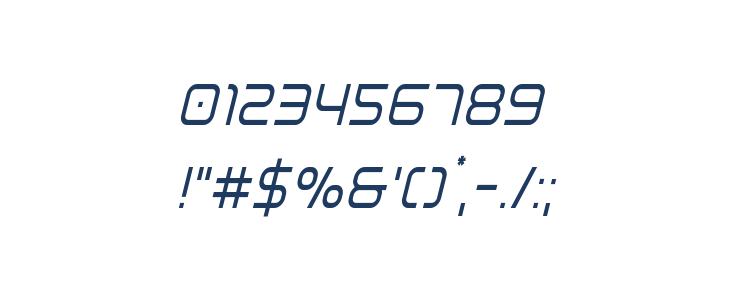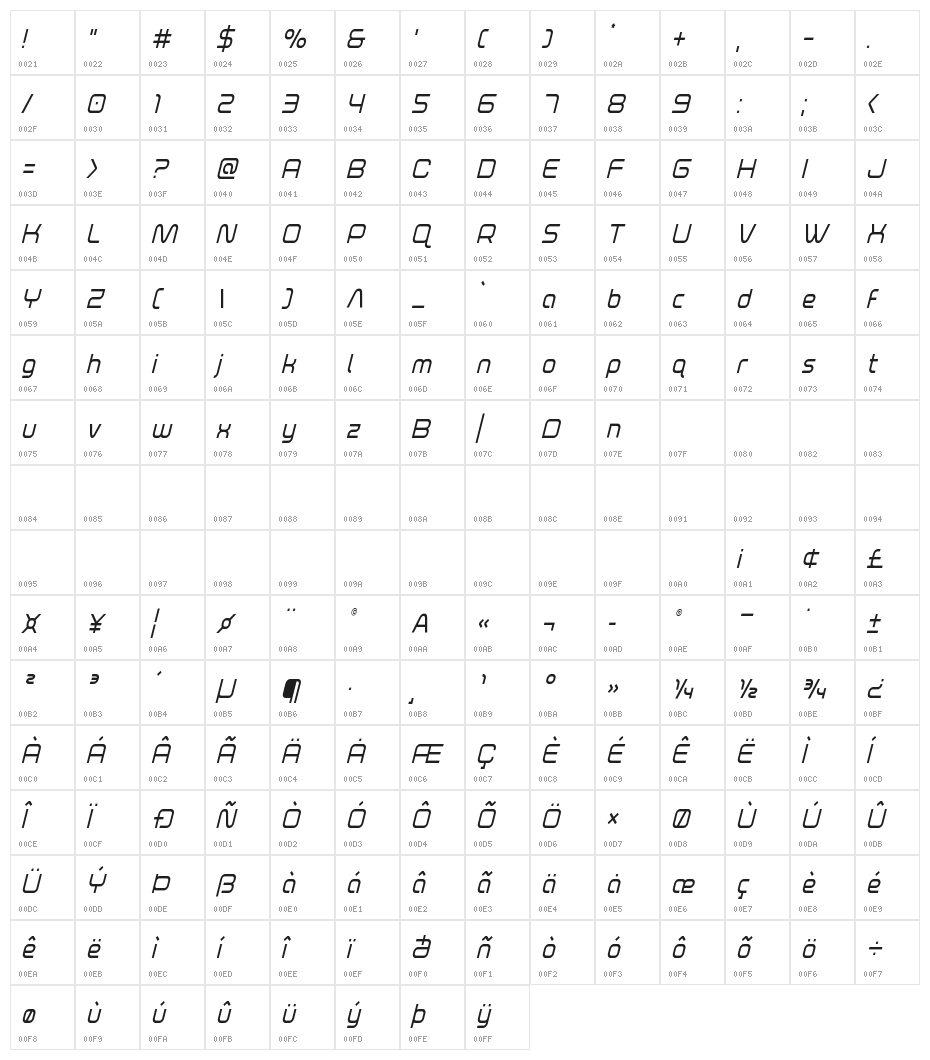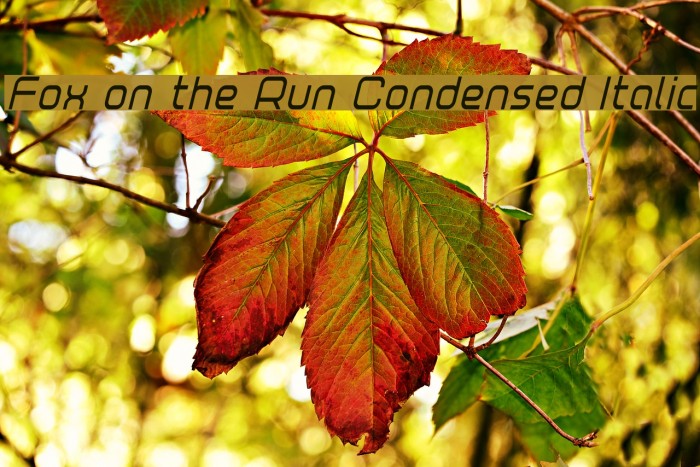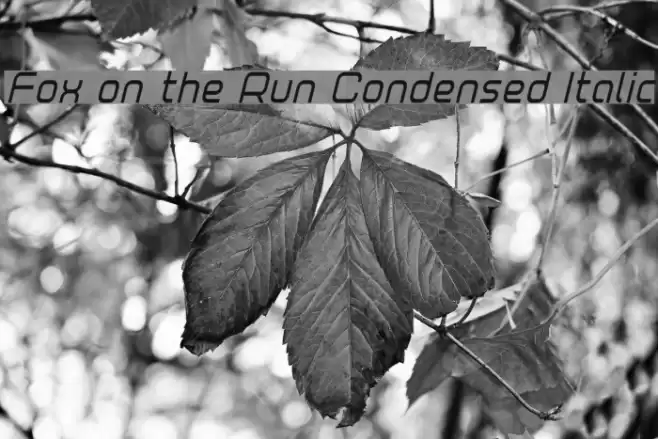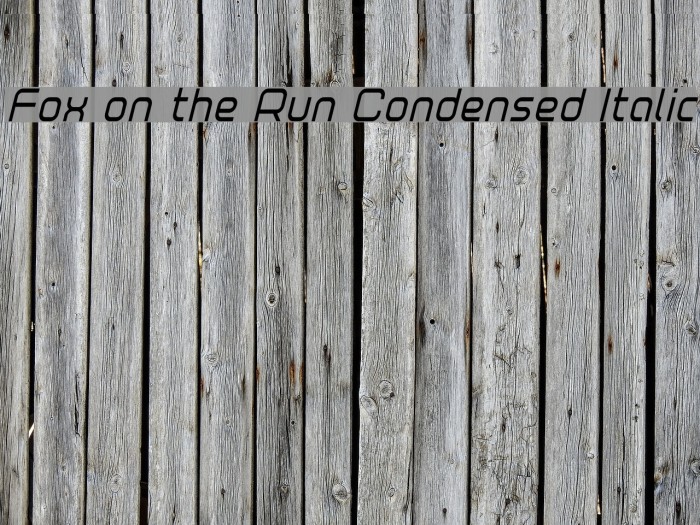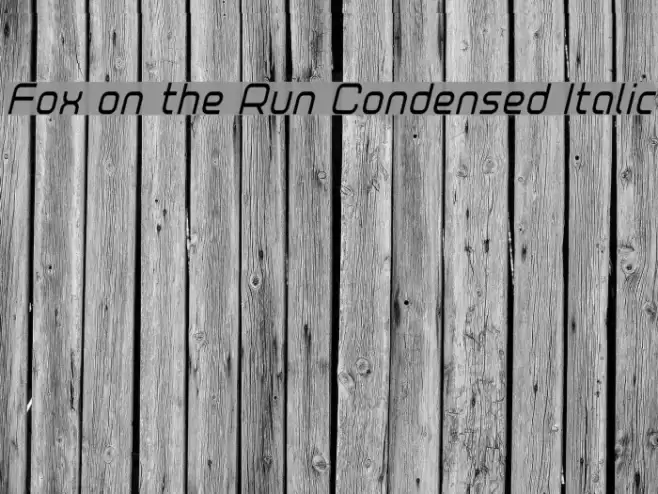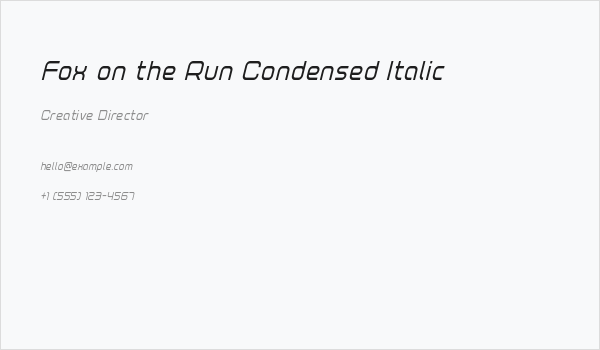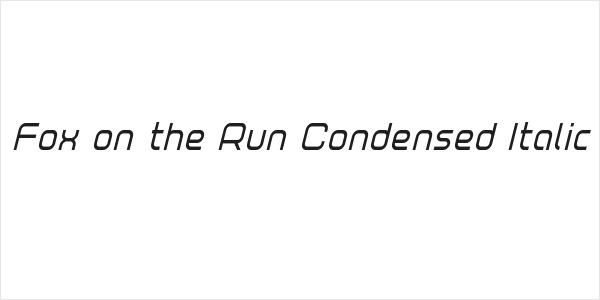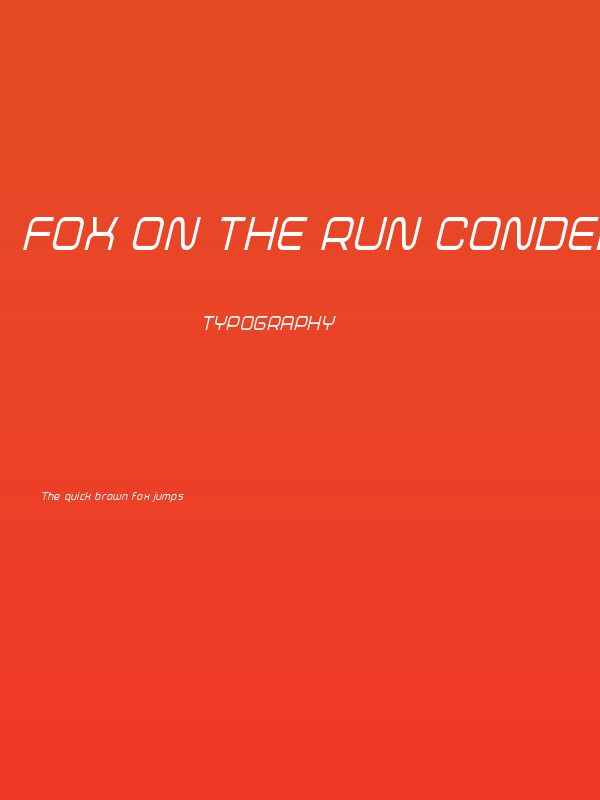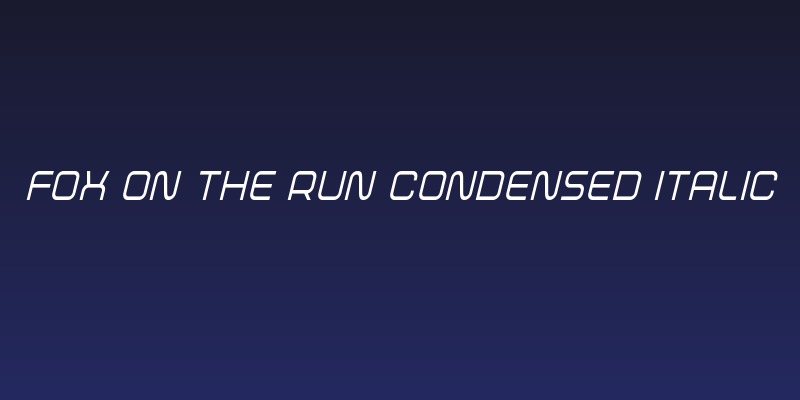
Fox on the Run Condensed Italic Font
Fox on the Run Condensed Italic Description
This font features a sleek, modern design with a condensed and italicized style. The characters are slightly slanted, giving a dynamic and forward-moving appearance. The strokes are consistent in thickness, providing a uniform look across all characters. The uppercase and lowercase letters maintain a harmonious balance, while the numerals and special characters are designed to complement the overall aesthetic. The font's condensed nature allows for efficient use of space, making it ideal for projects where space is limited but style is essential.
| Use Case | Headlines, Logos, Advertising |
| Proposed Projects | Ideal for use in modern branding, advertising, and editorial design where a contemporary and space-efficient typeface is needed. |